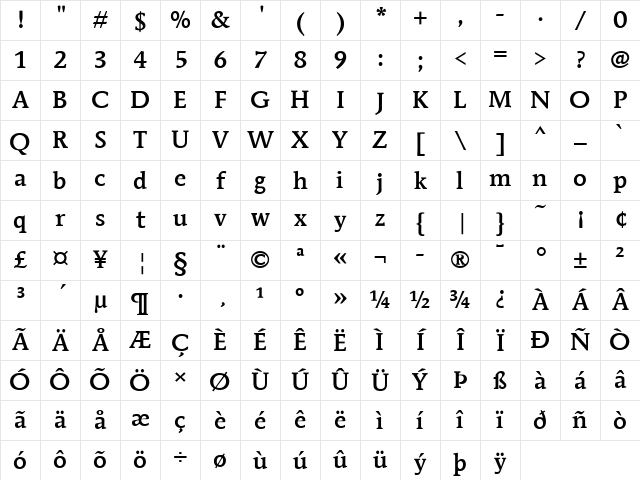
MendozaRomITCMed Regular
Complete MendozaRomITCMed Regular glyph index. Displaying only characters natively supported by MendozaRomITCMed Regular font.
Design Context for MendozaRomITCMed
MendozaRomITCMed is a composed and adaptable typeface that performs quietly and consistently across a wide range of design contexts.